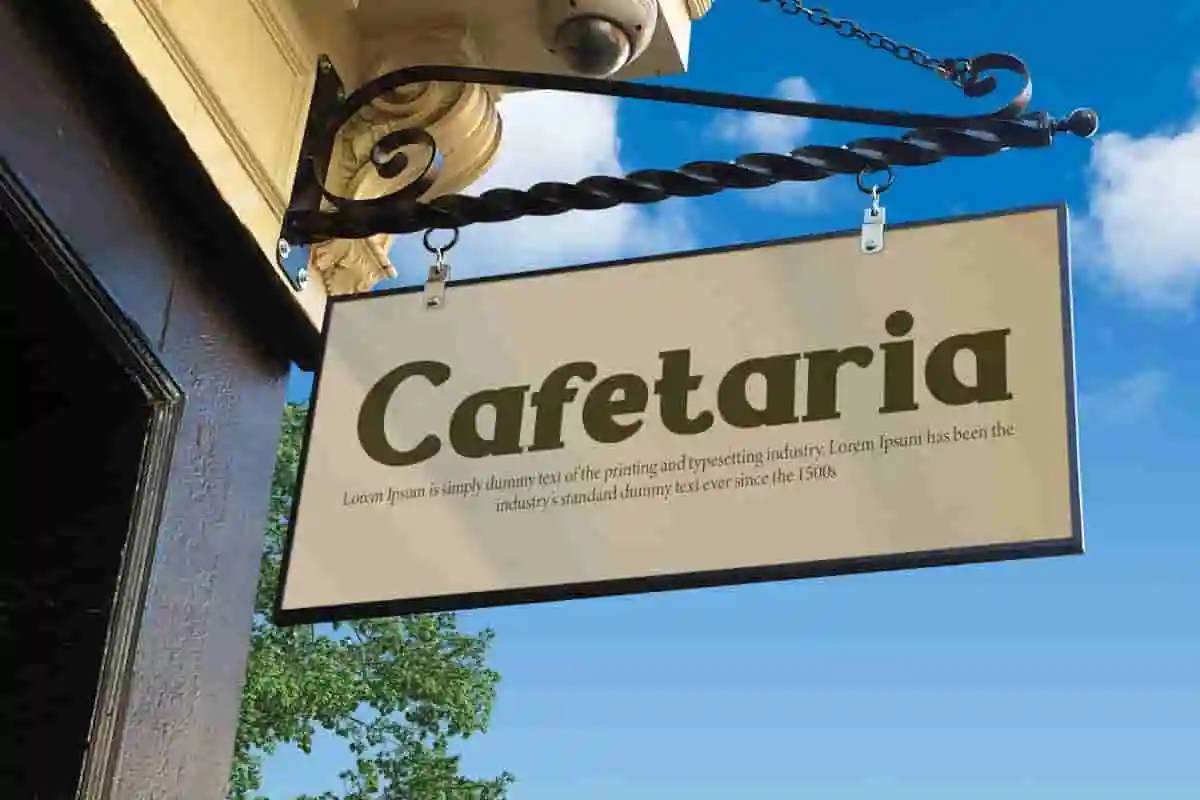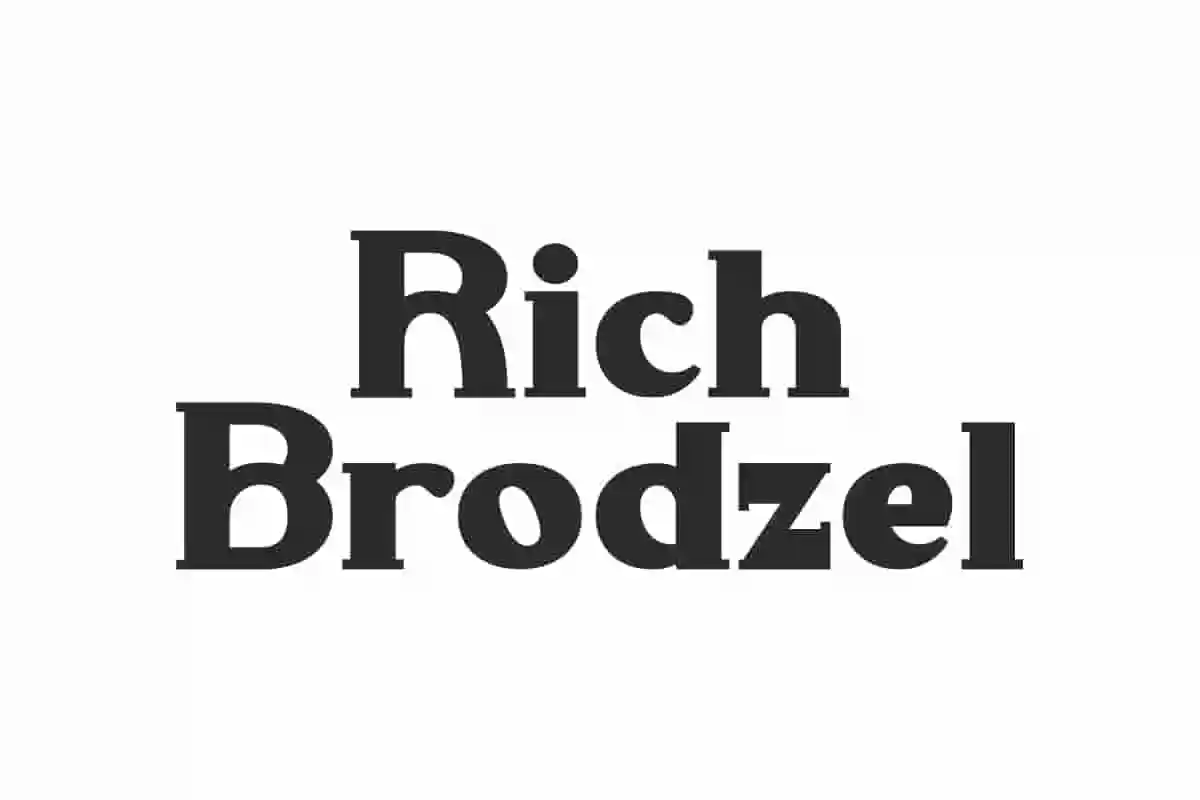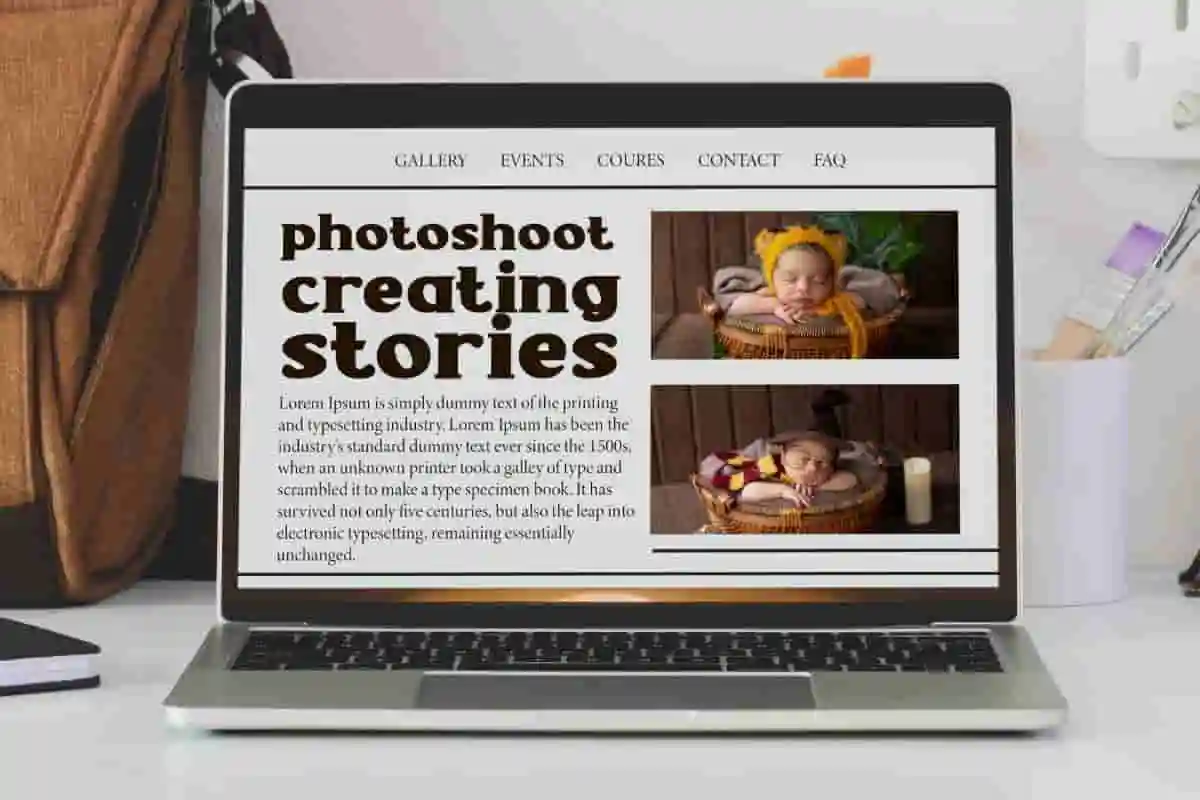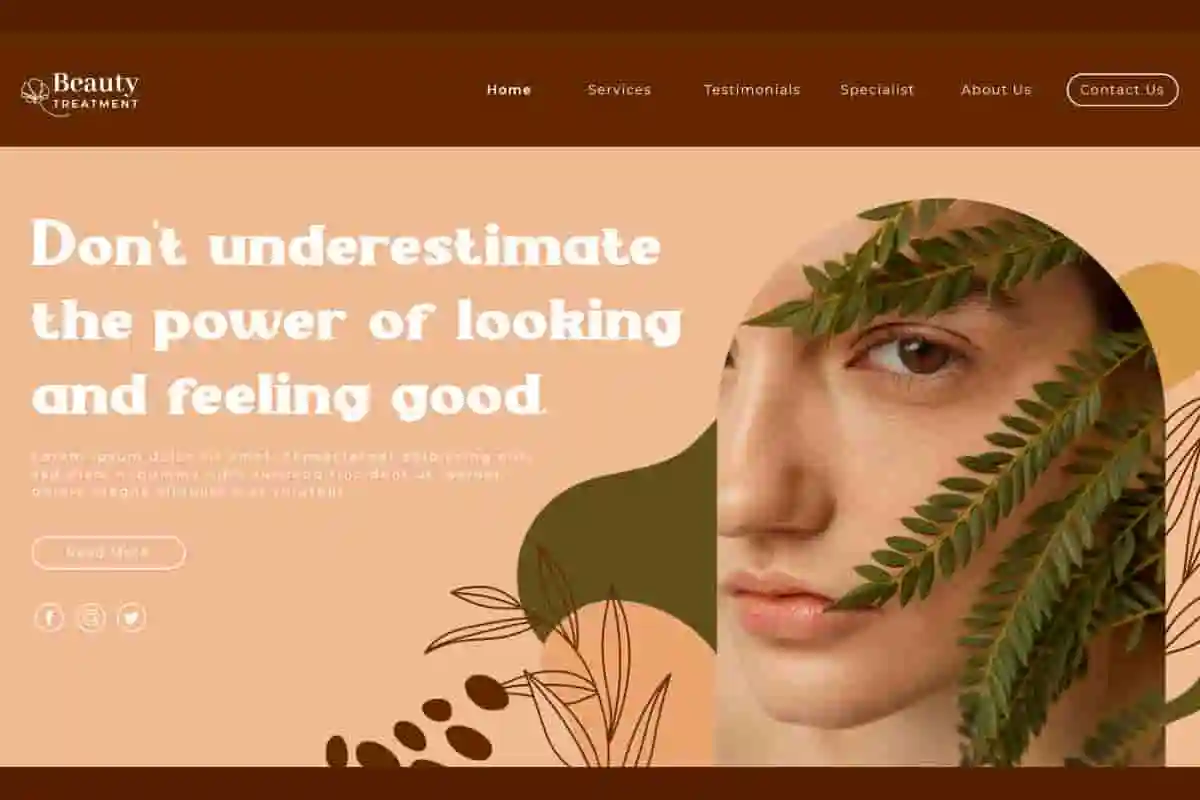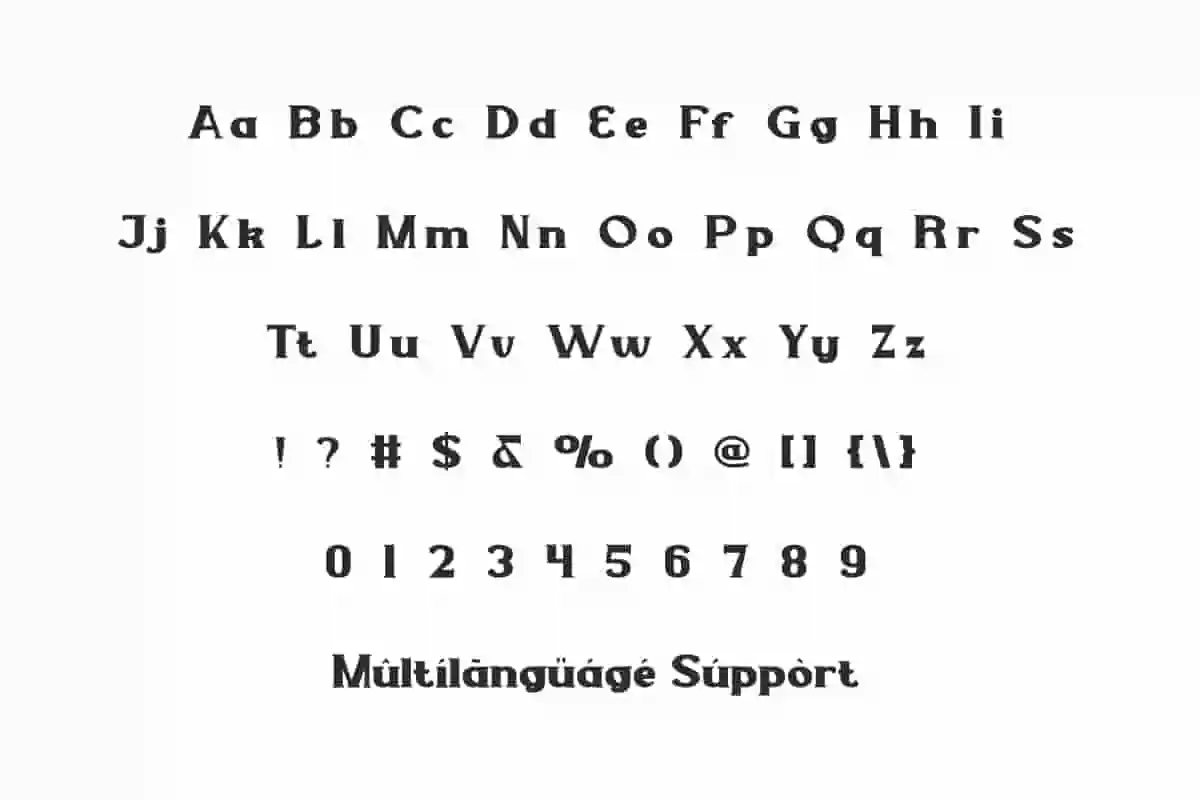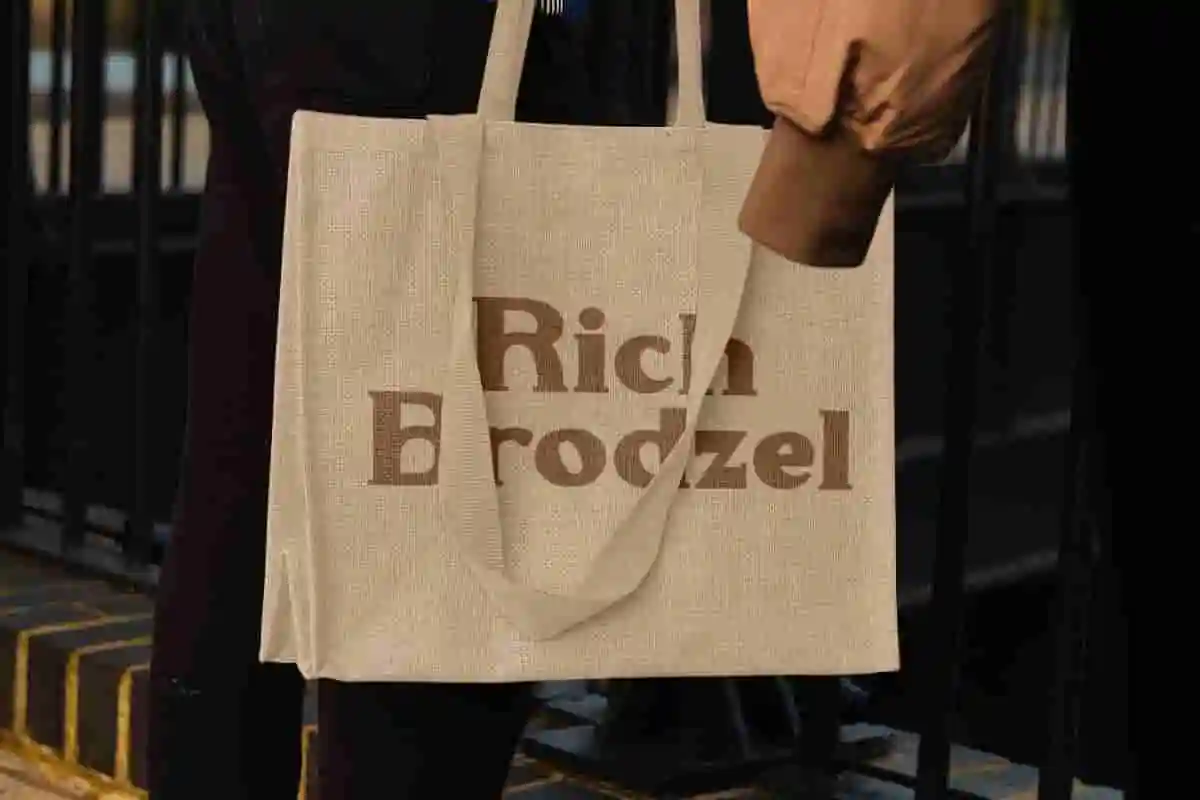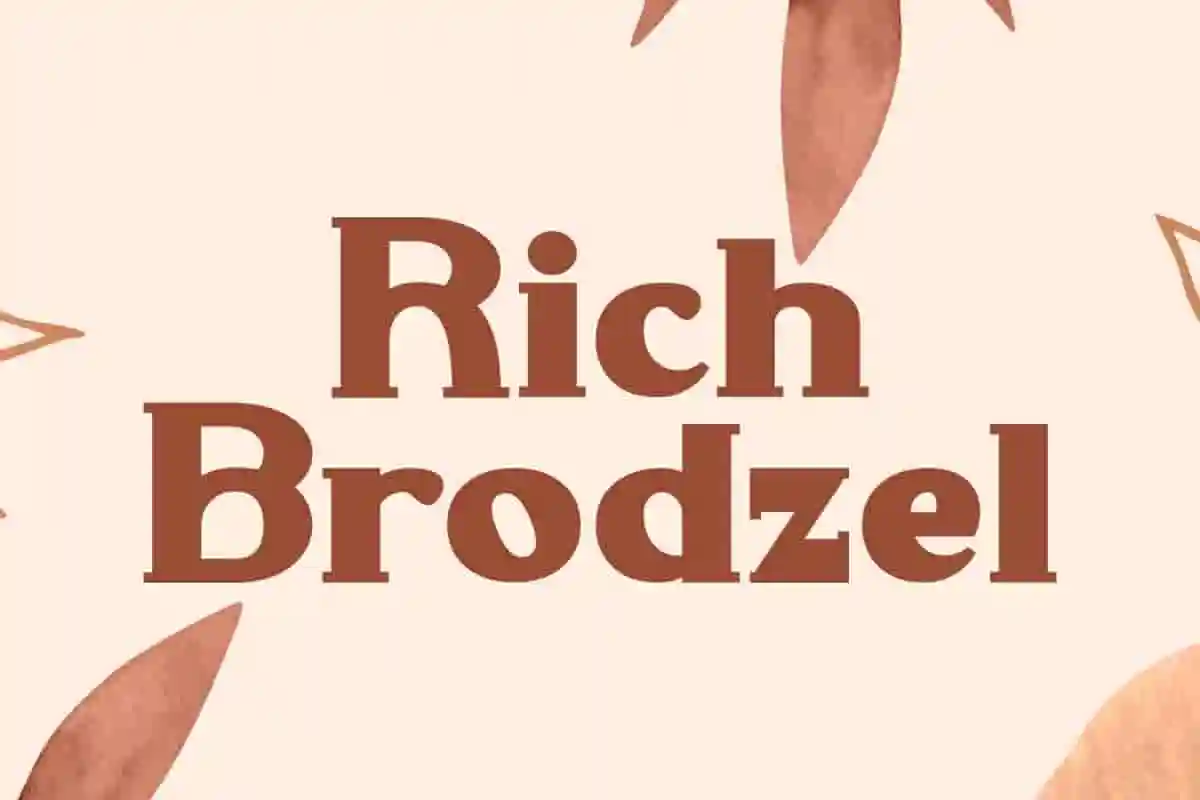
Rich Brodzel Font is a bold and distinctive display font with a fairly vintage style packaged in a more trendy way. It can easily be matched to any projects.
Rich Brodzel Font is a bold classic display font with a modern style. This font is perfect for those of you who want to create a project that has a retro feel but is not too old-fashioned. It is also suitable for use in banners, billboard, blogs, brand logo, brochure, covers, embossed design, headers, headline, label, mockup, poster, printed materials, quotes, signage, stickers, titles, template, website, and more.
Rich Brodzel Font includes full set of Uppercase and Lowercase Basic Characters, Numbers, Punctuation, and Symbols. This font is perfectly designed to look like a classic retro font from the past but combined with a modern style that will not be outdated. Perfect for accessories and gifts, advertising, beauty spa, cafes, graphic design, handicraft, photography, printing, publishing, skincare, and more.